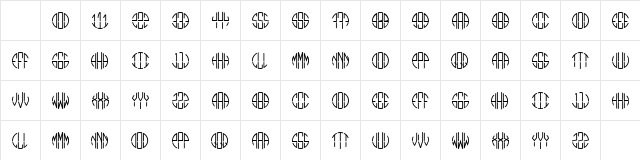
Complete Monogram Circle 3 Alphabet Regular glyph index. Displaying only characters natively supported by Monogram Circle 3 Alphabet Regular font.
Monogram Circle 3 Alphabet uses fixed-width spacing throughout, giving it the structured, systematic character associated with coding environments and technical documentation.
Pro Tip: Use Monogram Circle 3 Alphabet with slightly increased line-height for extended reading - fixed-width spacing can feel dense in longer passages without extra breathing room.